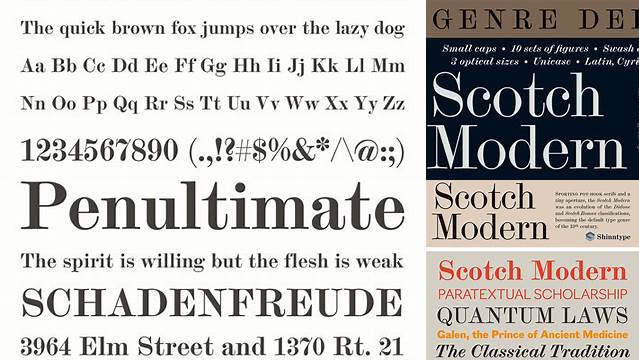
Free Scotch Modern Font Download: A Designer's Guide
Are you guys looking to infuse a touch of sophistication and modernity into your design projects? Well, you've come to the right place! In this comprehensive guide, we'll dive deep into the world of Scotch Modern fonts, exploring their unique characteristics, versatility, and, most importantly, where you can snag them for free. Scotch Modern fonts, renowned for their elegant serifs and clean lines, are a timeless choice for a wide array of design applications. Whether you're crafting a sleek logo, designing a captivating website, or curating an eye-catching print layout, the right Scotch Modern font can elevate your work to new heights. This article aims to be your ultimate resource, providing you with all the knowledge and resources you need to harness the power of these fonts. We'll cover the history and evolution of Scotch Modern typefaces, delve into their key features and characteristics, and, of course, provide you with a curated list of websites where you can download them for free. So, buckle up, fellow design enthusiasts, and let's embark on a journey to unlock the potential of Scotch Modern fonts!
What is Scotch Modern Font?
Scotch Modern fonts, my friends, represent a fascinating chapter in the history of typography. To truly appreciate their appeal, let's rewind a bit and explore their origins. These fonts emerged in the early 19th century, a period of significant innovation in printing technology. The advent of new printing techniques, such as the Didone style, paved the way for the development of fonts with sharper contrast and more refined details. Scotch Modern typefaces were born from this evolution, drawing inspiration from Didone fonts but carving out their own distinct identity. They quickly gained popularity for their elegance and readability, becoming a staple in books, magazines, and newspapers.
So, what exactly sets Scotch Modern fonts apart? Well, they're characterized by their high contrast between thick and thin strokes, which gives them a refined and sophisticated look. They also feature sharp, bracketed serifs, adding to their distinctive aesthetic. These fonts often possess a tall x-height, enhancing readability, and their overall design exudes a sense of timeless elegance. Think of fonts like Didot and Bodoni; Scotch Modern fonts share a similar DNA but with a slightly warmer, more approachable feel. The key features of Scotch Modern fonts include: High contrast between thick and thin strokes, Sharp, bracketed serifs, Tall x-height for enhanced readability, Elegant and sophisticated appearance. These characteristics make them incredibly versatile, suitable for a wide range of design projects, from branding and editorial design to web design and advertising. In branding, a Scotch Modern font can instantly convey a sense of luxury, sophistication, and heritage. Imagine a high-end fashion brand or a classic whisky distillery using a Scotch Modern font for their logo and branding materials – it just exudes a sense of quality and refinement. In editorial design, these fonts shine in headlines, subheadings, and body text, providing a clean and legible reading experience while adding a touch of elegance to the page. For web design, Scotch Modern fonts can be used to create a sophisticated and professional website, especially for businesses or brands that want to project a sense of authority and trustworthiness. And in advertising, these fonts can be used to grab attention and convey a sense of quality and luxury, making them ideal for campaigns promoting high-end products or services. Whether you're designing a logo, crafting a website, or laying out a magazine, Scotch Modern fonts offer a touch of timeless elegance that can elevate your work. Their versatility and readability make them a valuable asset in any designer's toolkit.
Where to Find Free Scotch Modern Fonts
- Fonts.com: Similar to MyFonts, Fonts.com is a leading provider of premium fonts, but they also have a free font section with a rotating selection of typefaces. You might just stumble upon a perfect Scotch Modern font for your next project.
Now that you know where to find free Scotch Modern fonts, let's talk about how to choose the right one for your project. With so many options available, it's easy to get overwhelmed. Here are a few tips to help you make the best choice:
- Consider the project's purpose: What are you using the font for? Is it for a logo, a website, a brochure, or something else? The purpose of your project will influence the type of font you need. For example, a font that's suitable for a headline might not be the best choice for body text.
- Think about the target audience: Who are you trying to reach with your design? The font you choose should resonate with your target audience. A sophisticated Scotch Modern font might be perfect for a luxury brand, but it might not be the best choice for a children's book.
- Pay attention to readability: While aesthetics are important, readability is crucial. Choose a font that's easy to read, especially for body text. Consider factors like x-height, letter spacing, and contrast.
- Check the font's license: As mentioned earlier, always check the font's license before using it. Make sure you have the right to use the font for your intended purpose, whether it's for a personal or commercial project.
So, guys, there you have it – a comprehensive guide to the world of Scotch Modern fonts and where to find them for free. We've explored their history, key characteristics, and versatility, and we've armed you with the knowledge and resources you need to incorporate them into your design projects. Scotch Modern fonts, with their timeless elegance and sophisticated aesthetic, are a valuable asset in any designer's toolkit. Whether you're crafting a logo, designing a website, or laying out a magazine, these fonts can elevate your work to new heights. Remember, the key to using Scotch Modern fonts effectively lies in understanding their unique characteristics and applying them thoughtfully. Pair them strategically, use them sparingly, and always prioritize readability. With a little practice and experimentation, you'll be able to harness the power of these beautiful typefaces and create designs that are both visually stunning and highly effective. Now, go forth and unleash your creativity! Explore the world of free Scotch Modern fonts, experiment with different styles and pairings, and discover the perfect typeface for your next project. Happy designing!